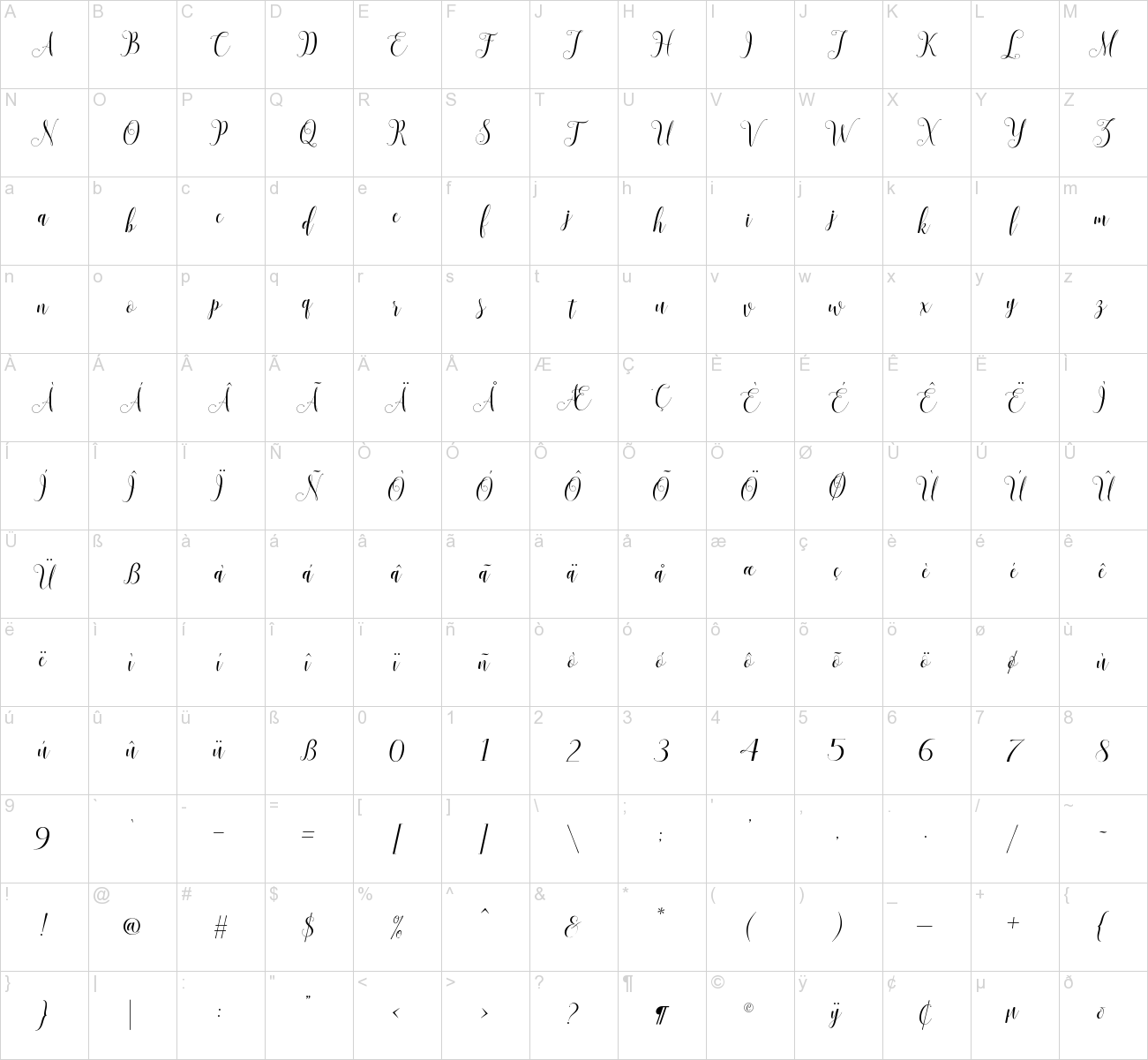
Sadhira Script Font
SadhiraScript is modern script font, every single letters have been carefully crafted to make your text looks beautiful. With modern script style this font will perfect for many different project, example: weddings, invitations, greeting cards, posters, name card, quotes, blog header, branding, logo, fashion, apparel, letter, stationery, etc.